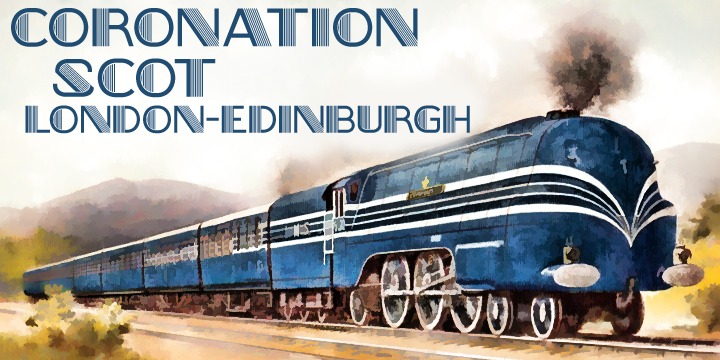
Oakland is a Streamline era design inspired by some hand-drawn lettering on a 1930’s French poster advertising a certain brand of Car (Automobile for our American cousins). It’s ideal for giving poster and design work that late 1930s to mid 1950s feel. Make a bold statement with this all capitals typeface!